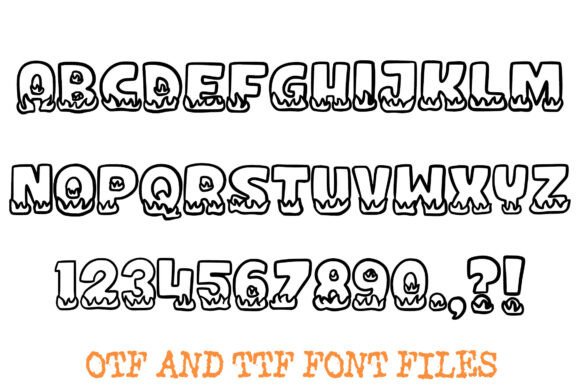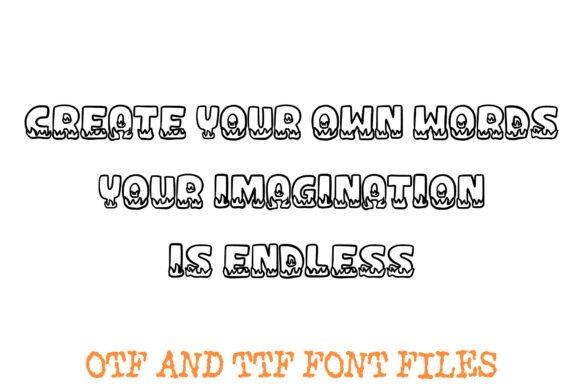
Ignite Your Designs with Flame Fire Cartoon Font
Are you looking for a font that can add a burst of energy and playfulness to your designs? Look no further than Flame Fire Cartoon Font! This dynamic and eye-catching typeface is perfect for designers and crafters who want to bring a touch of scorching fun and whimsical intensity to their creative projects.
A Font that’s a Burst of Fiery Personality
Flame Fire Cartoon Font is more than just a font; it’s a statement piece that can elevate your designs to the next level. Each character features a bold, rounded outline, with its base dynamically dripping and melting as if touched by intense heat. This unique, fluid effect creates an engaging visual that suggests everything from playful campfires to lava-hot goo.
Flame Fire Cartoon Font is an ideal choice for a wide range of design projects, including:
- Children’s games: Add a touch of playfulness and fun to your game’s title and UI elements.
- Comic book titles: Bring a burst of energy and excitement to your comic book titles and covers.
- Fiery branding: Perfect for brands that want to convey a sense of passion and energy.
- Hot sauce labels: Add a spicy touch to your hot sauce labels and packaging.
- Barbecue event posters: Create eye-catching posters that will make your barbecue events stand out.
- Social media posts: Add a sizzling touch to your social media posts and make them stand out.
- Digital art: Use Flame Fire Cartoon Font to add a unique and creative touch to your digital art.
Why Choose Flame Fire Cartoon Font?
So, why choose Flame Fire Cartoon Font over other fonts? Here are just a few reasons:
- Unique and eye-catching: Flame Fire Cartoon Font is unlike any other font out there. Its dynamic and fluid effect is sure to grab attention and make your designs stand out.
- Playful and fun: This font is perfect for designers who want to add a touch of playfulness and fun to their designs.
- Versatile: Flame Fire Cartoon Font can be used for a wide range of design projects, from children’s games to social media posts.
Tips for Using Flame Fire Cartoon Font
Here are a few tips for using Flame Fire Cartoon Font in your designs:
- Use it sparingly: While Flame Fire Cartoon Font is eye-catching, it can be overwhelming if used too much. Use it sparingly to add a touch of excitement to your designs.
- Pair it with other fonts: Flame Fire Cartoon Font pairs well with other fonts, such as sans-serif fonts. Experiment with different font combinations to find the perfect look for your design.
- Experiment with colors: Flame Fire Cartoon Font looks great in a variety of colors, from bright reds and oranges to deep purples and blues. Experiment with different colors to find the perfect look for your design.
Flame Fire Cartoon Font is a dynamic and eye-catching typeface that can add a burst of energy and playfulness to your designs. With its unique and fluid effect, it’s perfect for a wide range of design projects, from children’s games to social media posts. Whether you’re a designer or crafter, Flame Fire Cartoon Font is sure to ignite your creativity and help you create designs that stand out.